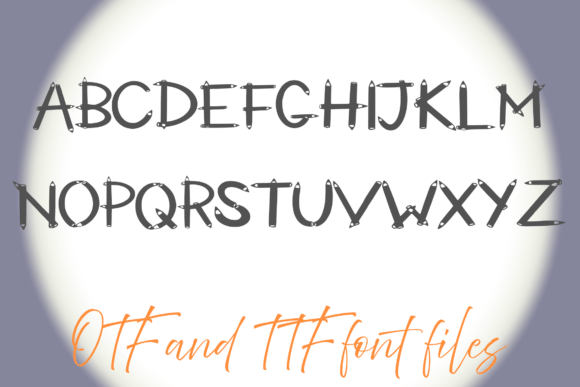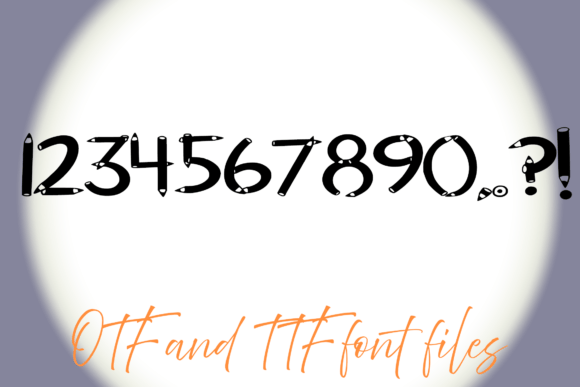
Introduction to Sketch Pencil Font
Remember that moment when you were a kid, scribbling with a pencil on a blank sheet of paper, creating your own world of imagination and art? That sense of freedom and creativity is exactly what the Sketch Pencil Font embodies. This charming typeface is designed to transport you back to that carefree time, where the boundaries of art and design blur, and the only limit is your imagination.
For designers, Sketch Pencil Font is a valuable resource, offering a unique blend of playfulness and professionalism. Whether you’re working on a creative project, designing educational materials, or creating art-themed content, this font is an excellent choice. Its transparent background and high-quality design make it perfect for use on various backgrounds, ensuring your work stands out.
Key Features of Sketch Pencil Font
- Unique Hand-Drawn Design: Sketch Pencil Font features a distinctive hand-drawn style that adds a touch of creativity to any design project.
- Perfect for Creative Projects: Sketch Pencil Font is ideal for use in creative projects, such as illustrations, graphics, and editorial design, where a unique and expressive font is desired.
Honest Review: Sketch Pencil Font
I recently stumbled upon the Sketch Pencil Font, and I must say it’s been a game-changer for my creative projects. This font is perfect for designers who want to add a touch of whimsy and playfulness to their designs.
- High-quality design: The Sketch Pencil Font is beautifully crafted, with intricate details and a smooth texture that makes it look like a real pencil mark.
- ⚠️ Limited font styles: The Sketch Pencil Font only comes in a few different styles, which may not be enough for designers who want a lot of customization options.
- ⚠️ Not ideal for large text: The font is best used for smaller text sizes, as it can become difficult to read at larger sizes.
Overall, I’m thoroughly impressed with the Sketch Pencil Font. It’s a high-quality design resource that’s perfect for adding a personal touch to my creative projects. If you’re looking for a fun and playful font, I highly recommend giving it a try.
Sketch Pencil Font is ideal for creative projects that require a unique and playful touch. Some common use cases include:
- Children’s book illustrations
- Wedding invitations